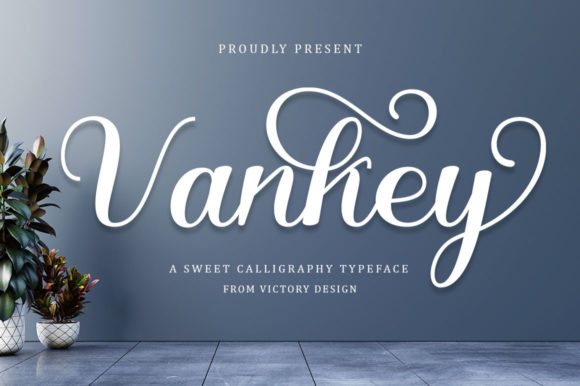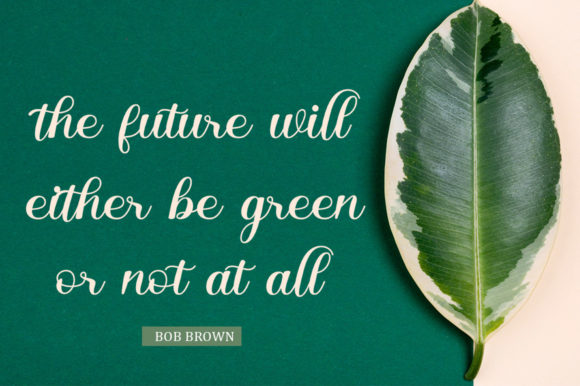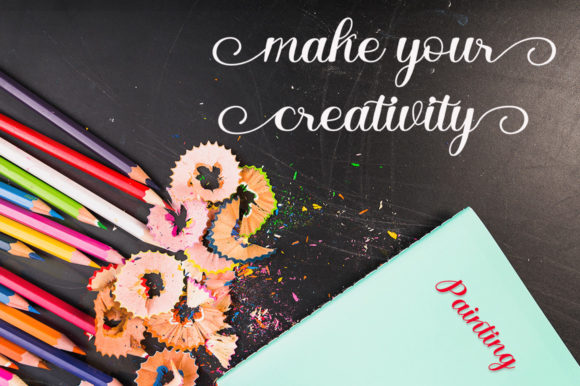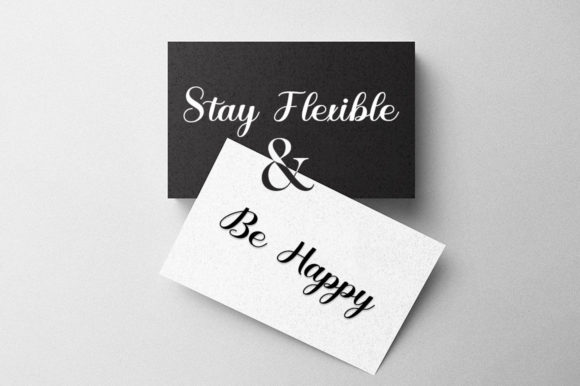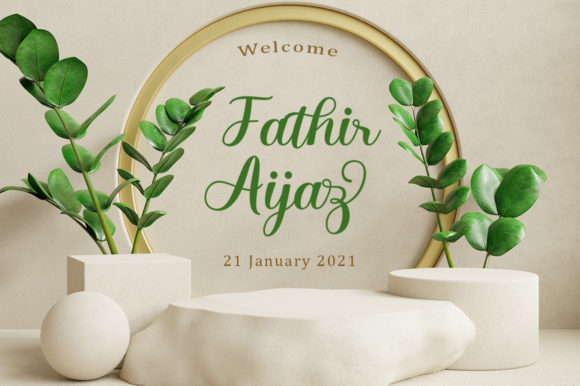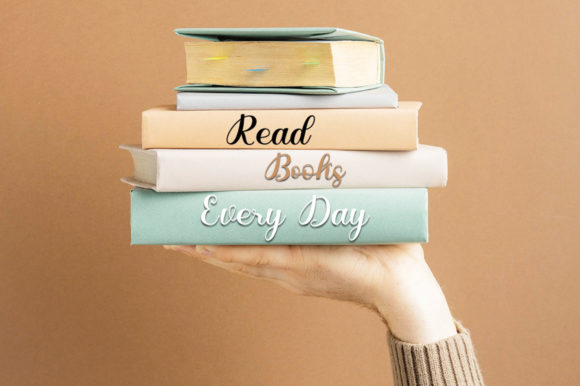
About Vankey Font
Vankey is an enchanting handwritten font. This versatile script font has a wide spectrum of applications ranging from greeting cards to headlines and is guaranteed to add a romantic feel to your next project. Vankey is PUA encoded which means you can access all of the glyphs and swashes with ease!